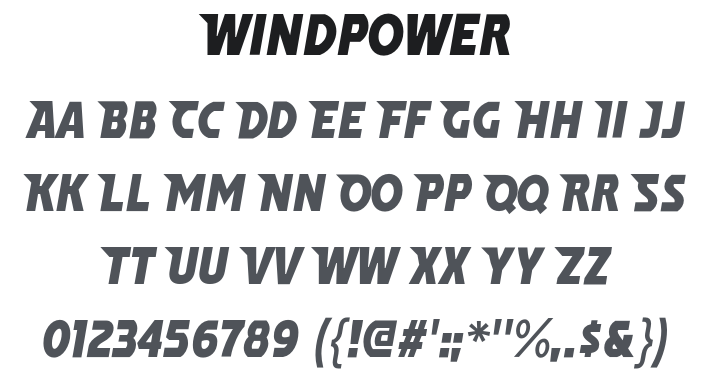
Windpower Font
About Windpower
Windpower is a heavy, ultra-bold condensed italic sans-serif display typeface where capital letters feature distinctive wing-like flares on their stroke ends — subtle aerodynamic flourishes that give each character a sense of lift and forward thrust. The aggressive slant and extreme weight make every word feel like it's breaking the sound barrier. Perfect for aviation branding, motorsport graphics, action game titles, sports headlines, and any design needing maximum speed and power.